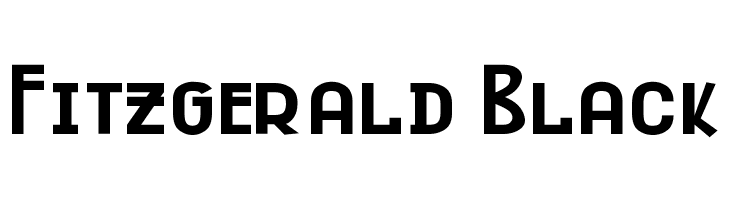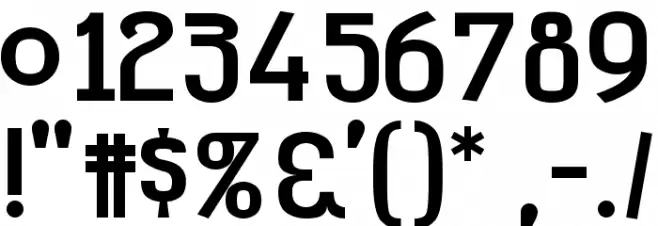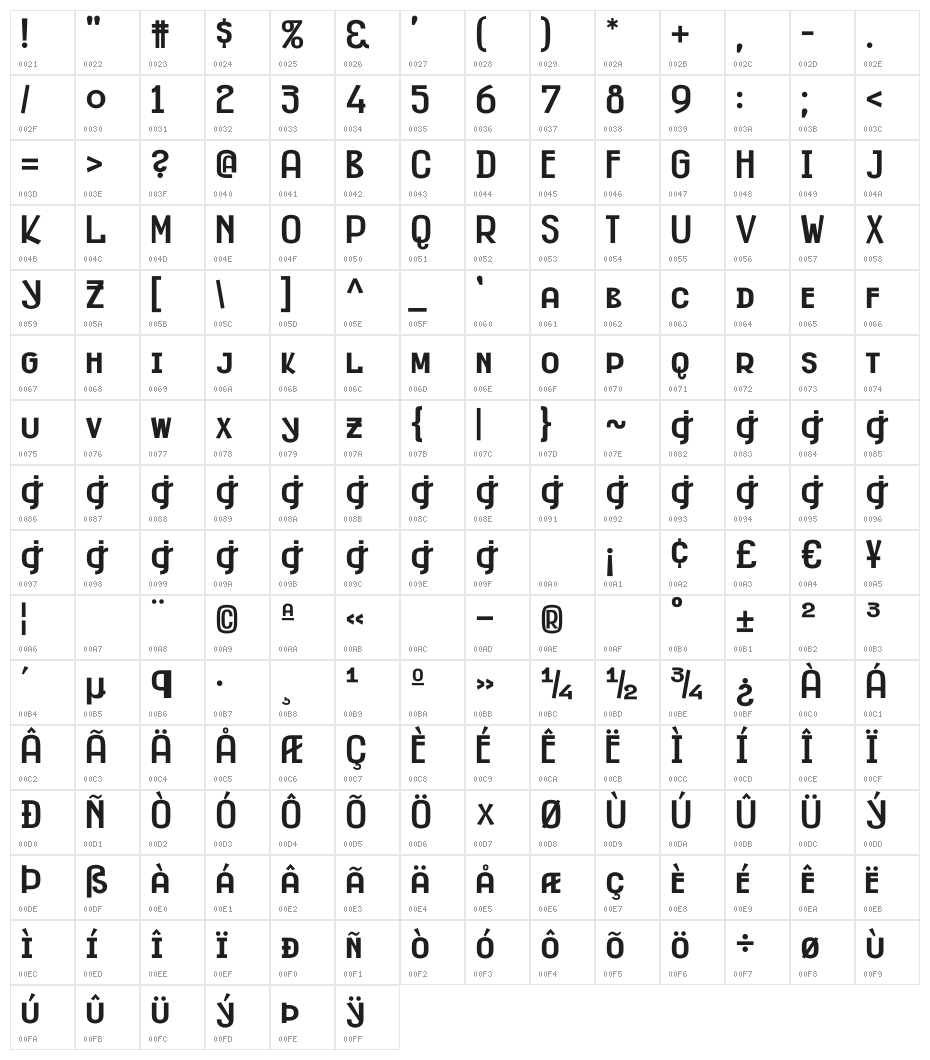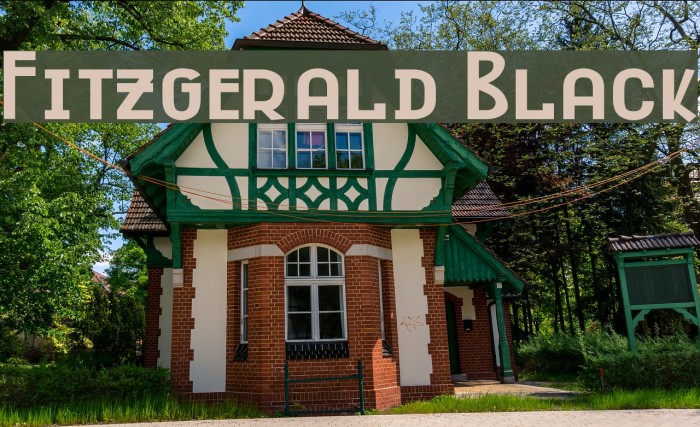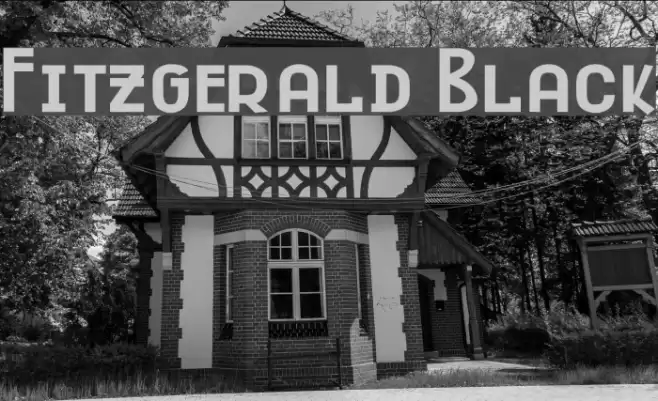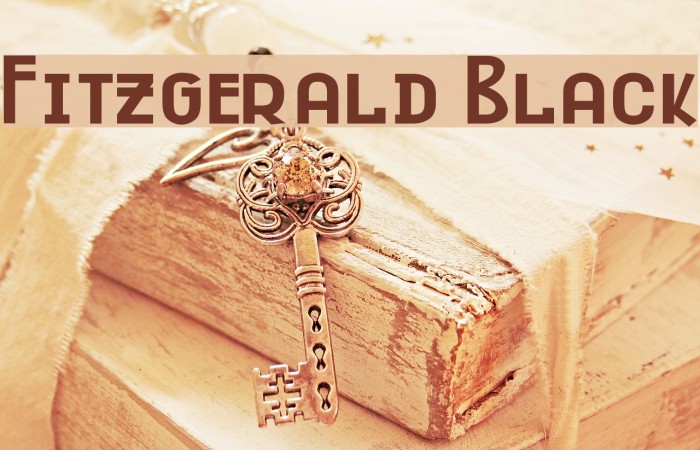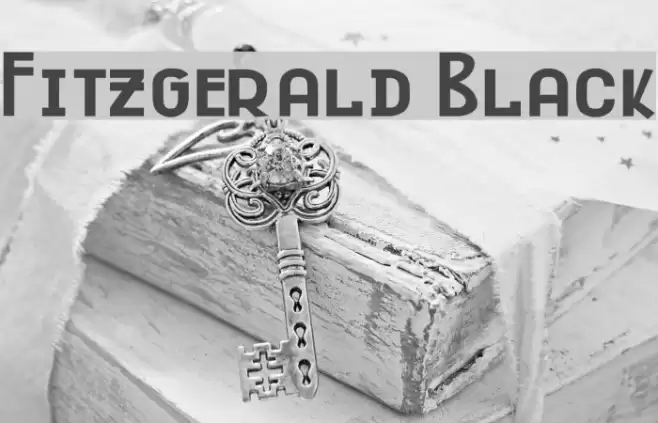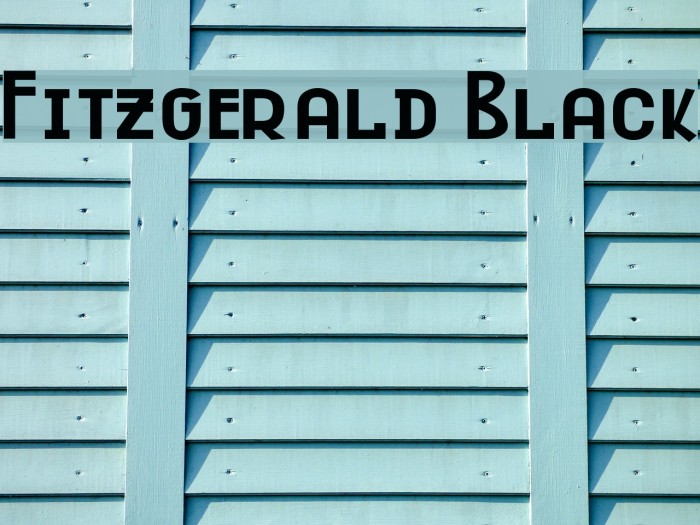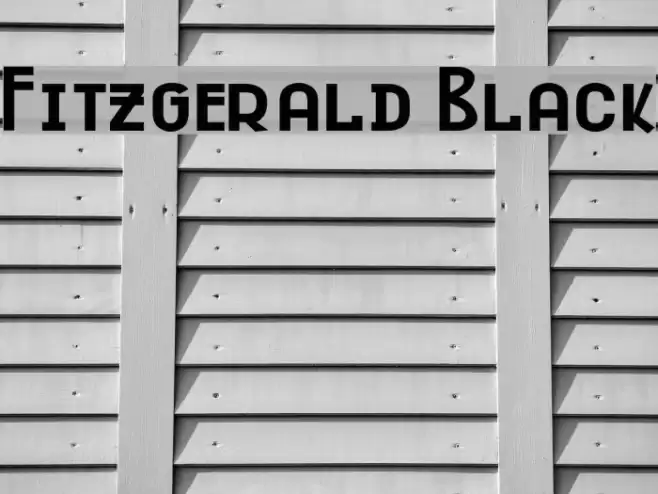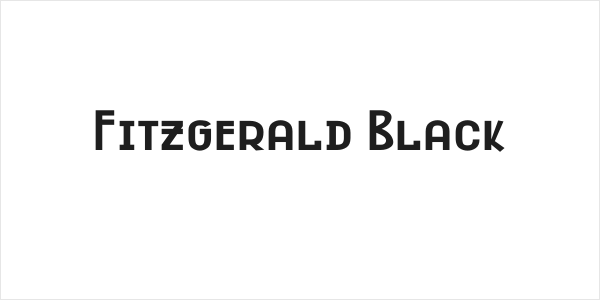
Fitzgerald Black Font
Fitzgerald Black Description
This font features a bold and striking design, characterized by its thick, uniform strokes and geometric structure. The uppercase letters exhibit a strong presence with consistent line weights, while the lowercase letters maintain the same robust style, ensuring readability and impact. The numerals are clear and bold, matching the overall aesthetic of the alphabet. Special characters are designed with the same attention to detail, providing a cohesive look across all glyphs. This font's modern and assertive style makes it suitable for a variety of applications where a strong visual statement is desired.